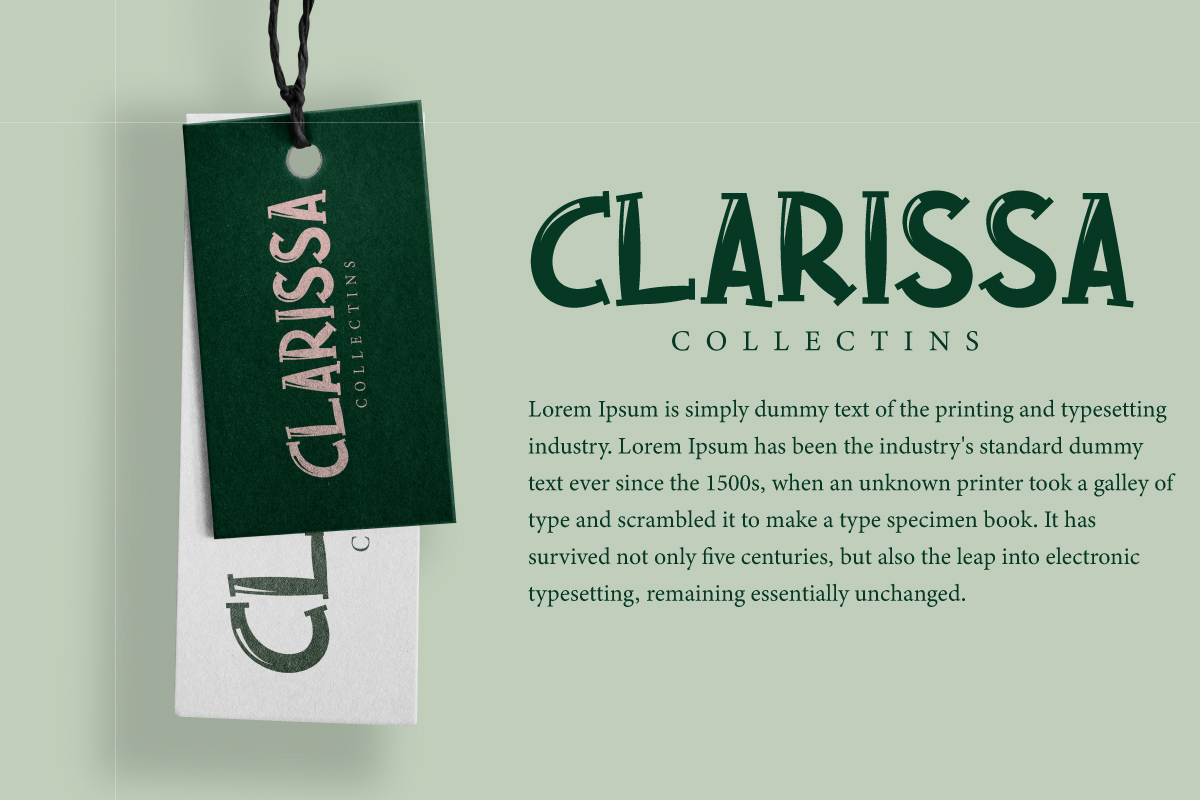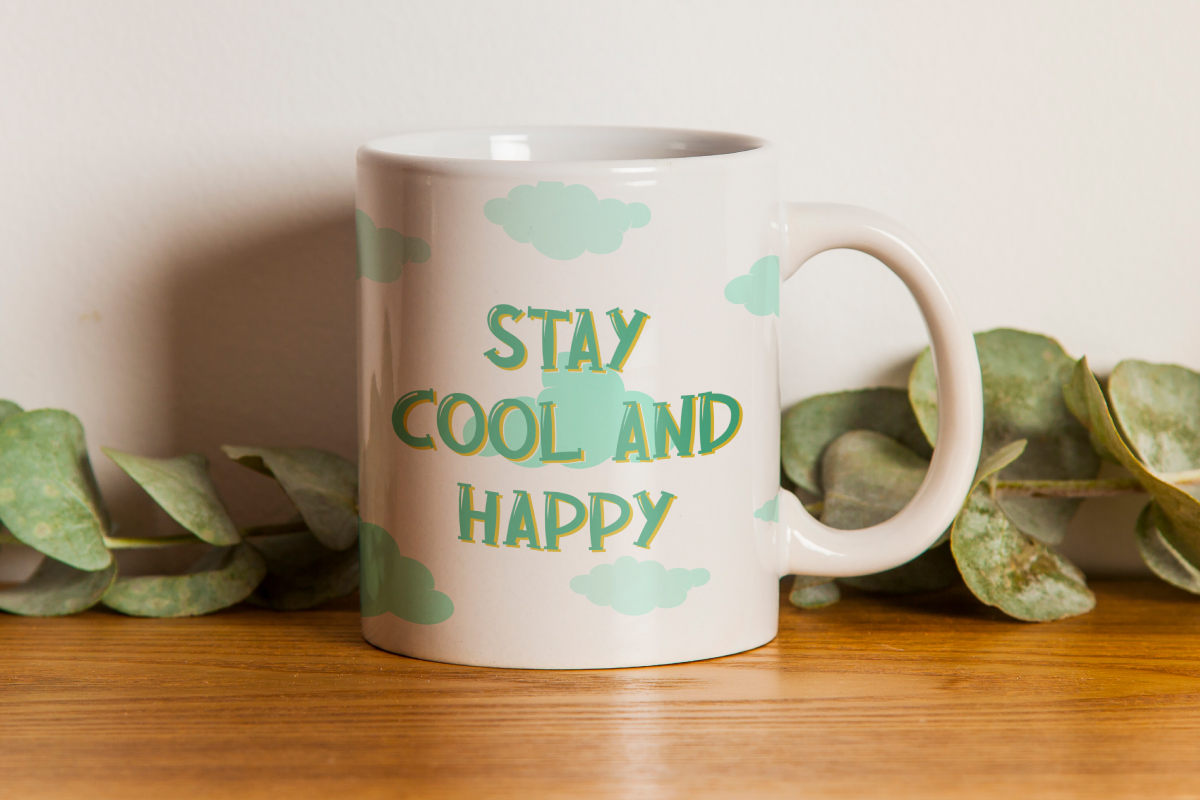
Green Balloon Font
Green Balloon Display Font
This is playful display font with cartoon style inspired from children playful experience. This font is inspired by the shape of a balloon that is inflated and still easily to read. It will be perfect for industry such as baby product design, birthday party, carnival, comic, fashion, food or drink brands, and more.